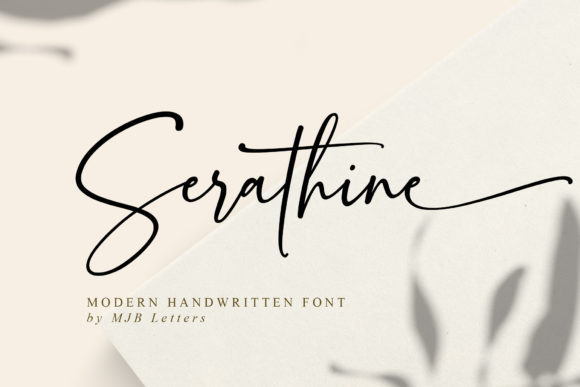
Introducing Serathine Font, the perfect choice for those seeking elegance, beauty, and sophistication in their designs. Created by MJB Letters, this modern handwritten script will elevate your work to new heights and is ideal for various projects, from wedding stationery to logo design, watermarks, branding, websites, and social media.
With Serathine Font, you'll have access to all of the glyphs and swashes with ease, thanks to its PUA encoding. This feature means that you'll be able to create beautiful and unique designs effortlessly. Whether you're a professional designer or just starting, Serathine Font is the perfect tool to showcase your creativity and express your individuality.
Serathine Font is a script font that is keyword-rich, making it one of the best fonts for cups Cricut. Its beauty lies in its unique and stylish design, which will capture the attention of anyone who sees it. The font family is versatile and adaptable, which means it can be used for a variety of designs and purposes.
Serathine Font is a must-have for anyone who wants to take their design game to the next level. Its elegance and sophistication make it perfect for creating timeless designs that will never go out of style. With Serathine Font, you'll be able to create beautiful designs that stand out and make an impact. Don't miss out on the opportunity to use one of the best fonts on the market today.